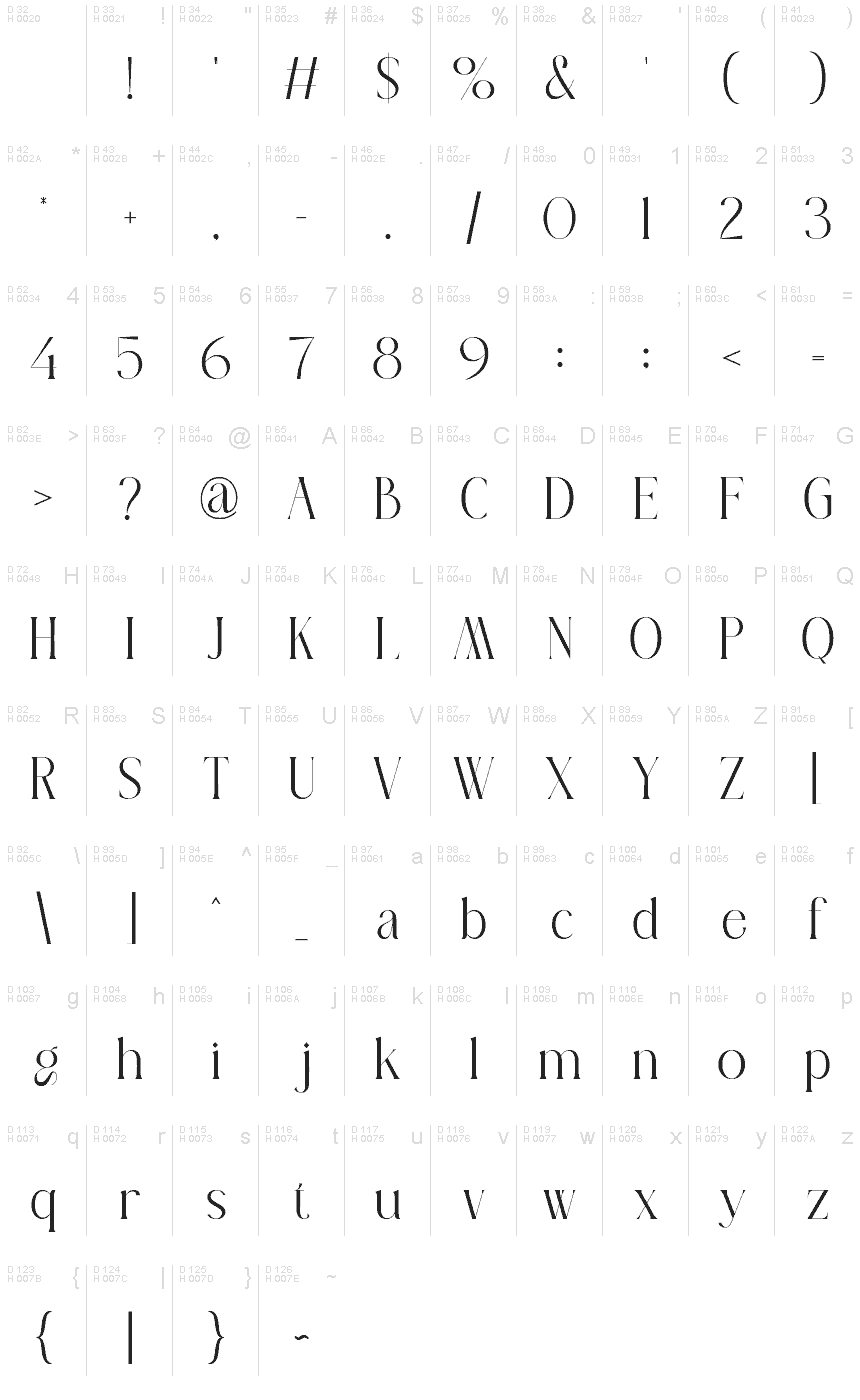
Veminit
Veminit font is a sophisticated offering by Ahmad Riqi that exudes a modern and elegant aura. With minimalistic influences, this serif font achieves a high-end aesthetic suitable for projects that demand attention to detail. Its refined look allows it to convey an aura of prestige and timeless style without compromising on readability.